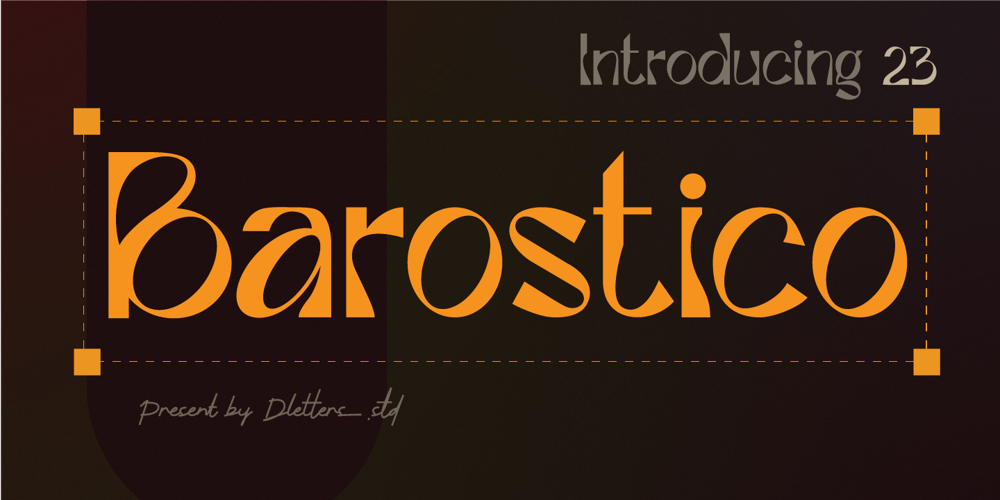
Barostico Font Family was designed by Diosi Julianto and published by DLetters Studio. Barostico contains 1 styles and family package options. About ProductsCrafted with an eye-catching look, the Barostico Display has plenty of boldness and a hint of eccentricity, as well as sophisticated details that can stand up to its enormous size. With a wide range of expressions and styles, it can be used for everything from fashion labels to logotypes, to magazines, product packaging and billboards.Thanks for checking out Barostico Display. I really hope you enjoy using it! please kindly send us a message for any question about our product.